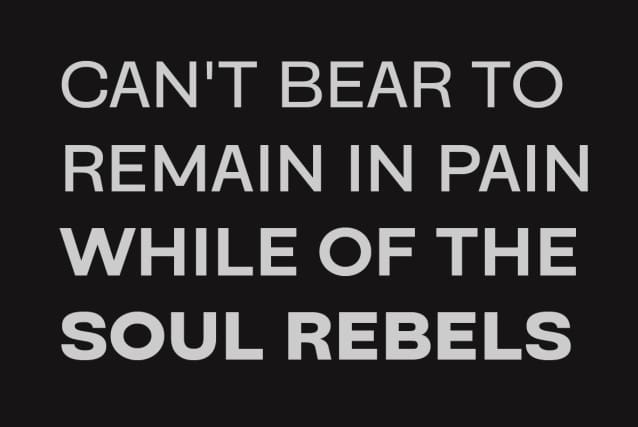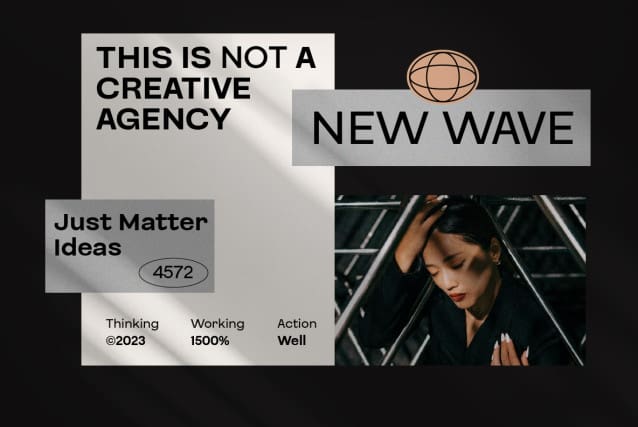
Sunsive Font Family
Sunsive Font Family, designed to deliver both bold elegance and refined simplicity, Sunsive Sans Serif offers variations ranging from Regular to Black, allowing you to customize your text with precision. Whether you need the subtlety of Regular or the power of Black, each weight ensures your designs have a modern and polished look.
Introducing the Sunsive Sans Serif Font Family, the ultimate choice for designers seeking a clean, minimalist, and professional aesthetic. With a wide array of weights and styles, this versatile font family is perfect for everything from striking headlines to body text, web design, print materials, and modern branding projects.
Key Features:
• Timeless Design: Clean lines and a balanced structure for a sophisticated look.
• Versatile Styles: Available in Light, Regular, Bold, and Extra Bold weights.
• Enhanced Readability: Designed for both large and small text sizes.
• Multilingual Support: Extensive character set supporting global languages.
• OpenType Features: Includes ligatures, alternates, and stylistic sets for creative flexibility.
Benefits:
• Professional Appeal: Perfect for logos, branding, and editorial projects.
• Consistency: Provides a cohesive and unified appearance across all design materials.
Ideal For:
• Branding and Logo Design: Create memorable and impactful brand visuals.
• Web and Mobile Design: Elevate the user experience with a professional, modern font.
• Print Materials: Perfect for brochures, business cards, posters, and more.
• Editorial Design: Achieve a professional look for magazines, books, and reports.
Elevate your design projects with the Sunsive Sans Serif Font Family – a font that embodies modern minimalism and timeless professionalism.